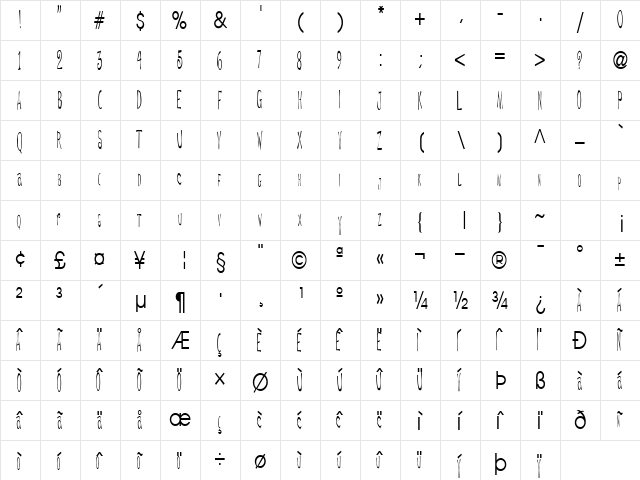
DeGarThin6 Regular
Design Context for DeGarThin6 Typeface
DeGarThin6 is a composed and adaptable typeface that performs quietly and consistently across a wide range of design contexts. Its slender proportions lend an understated elegance to any composition.
Pro Tip: Pair DeGarThin6 with a font of contrasting weight or personality to build a more expressive typographic hierarchy.